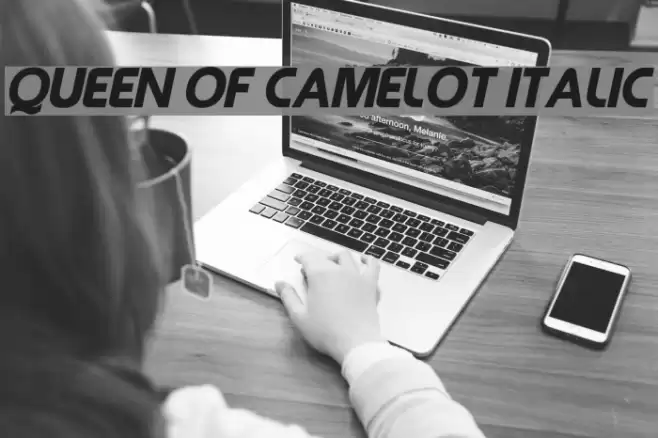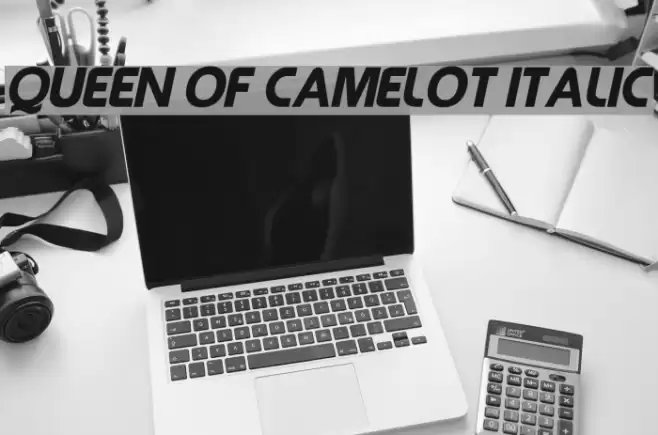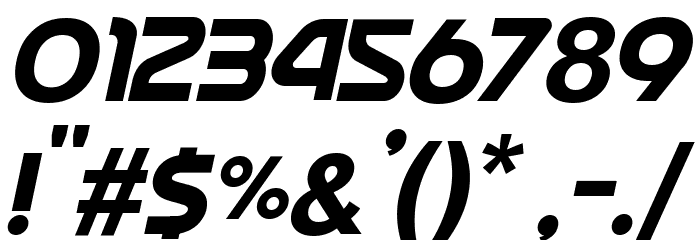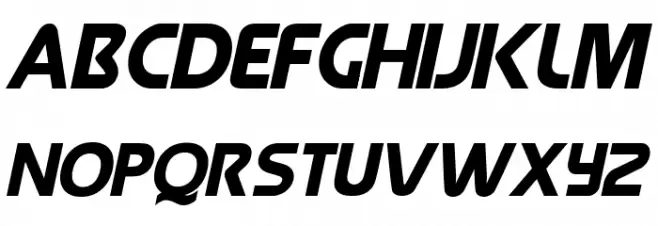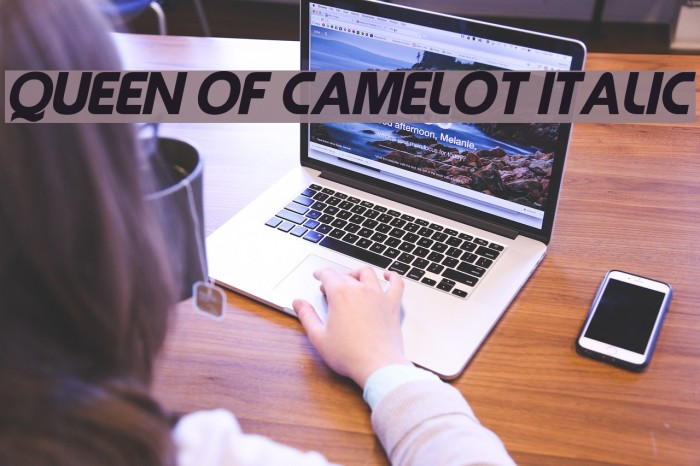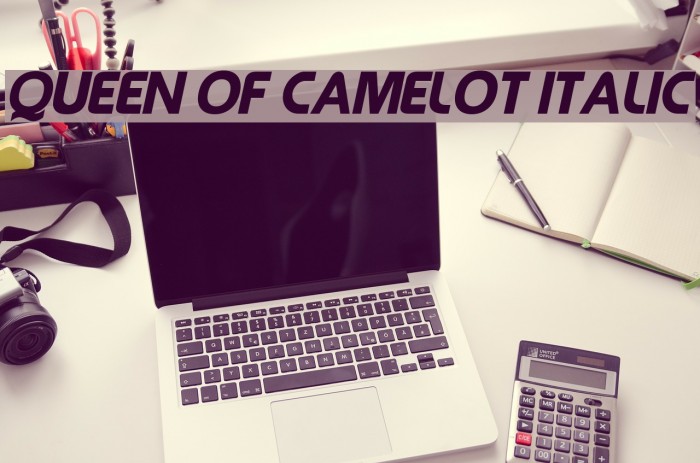
Queen of Camelot Italic Font
Queen of Camelot Italic Description
This font features a dynamic and modern italic style with a strong presence. The characters are bold and slightly condensed, giving a sense of movement and energy. The strokes are consistent in thickness, providing a medium contrast that enhances readability while maintaining a stylish appearance. The uppercase and lowercase letters are designed with a slight slant, adding to the italicized effect. The numerals and special characters are crafted to match the overall aesthetic, ensuring uniformity across all text elements. This font is ideal for projects that require a bold and contemporary look.
A bold, italicized font with medium contrast and a modern, dynamic style from Uncategorized fonts.
- Proposed Projects: Ideal for branding, advertising, headlines, and modern design projects.
- Width: Condensed
- Use Case: Headlines, Logos, Advertising